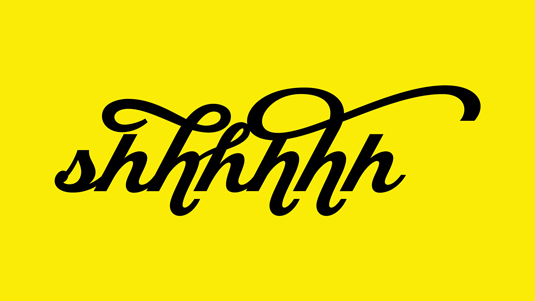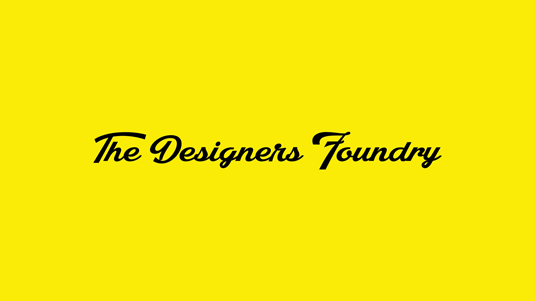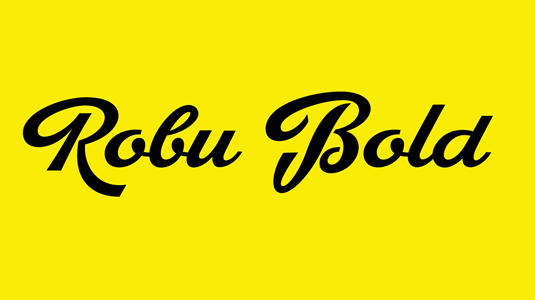
Font of the day: Robu Bold
Robu Bold by Andrei Robu
Today's typeface of choice is Robu Bold, by creator of Typeverything Andrei Robu. A display typeface inspired by vintage shop signs, Robu Bold is perfecty suited to logos and titles.